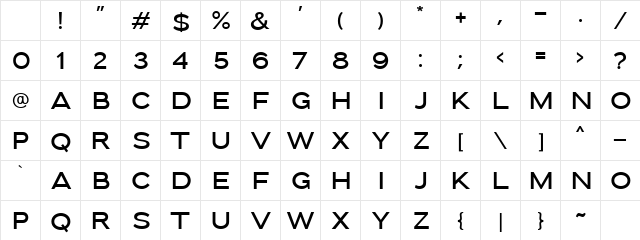
Complete Downey DEMO Regular glyph index. Displaying only characters natively supported by Downey DEMO Regular font.
Downey DEMO is a composed and adaptable typeface that performs quietly and consistently across a wide range of design contexts.